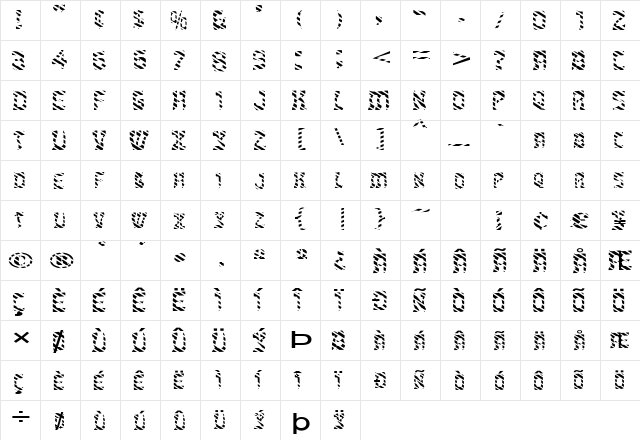
FZ UNIQUE 27 STRIPED EX Normal Font Preview
FZ UNIQUE 27 STRIPED EX Normal
Design Context for FZ UNIQUE 27 STRIPED EX Typeface
FZ UNIQUE 27 STRIPED EX is a composed and adaptable typeface that performs quietly and consistently across a wide range of design contexts.